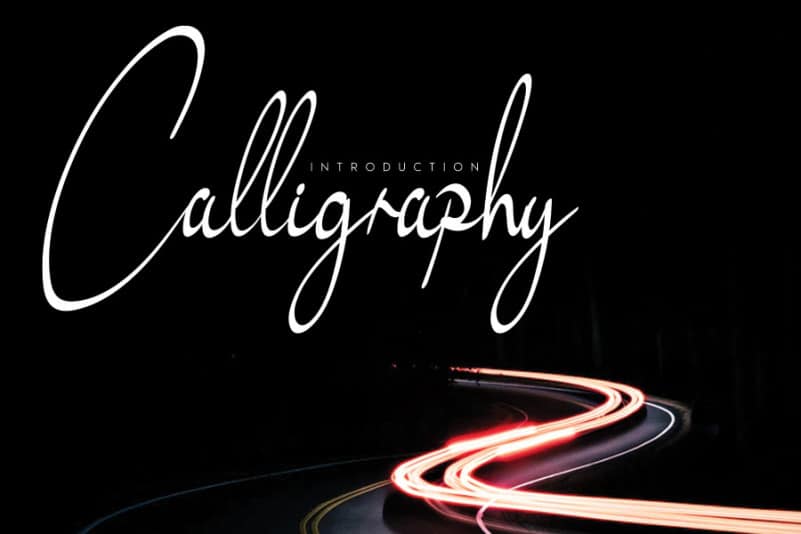
Yollanyta Handwritten Font
Yollanyta Handwritten Font is a flowing and timeless handwritten font. Its relaxed and exquisite style makes it the perfect choice for any design idea you can think of. Fall in love with Yollanyta and bring your projects to the highest levels!
The latest style letters are perfect for wall displays, wedding invitations, social media post logos, advertisements, product packaging, product designs, labels, photography, watermarks, invitations, stationery, and any project that requires taste handwriting.